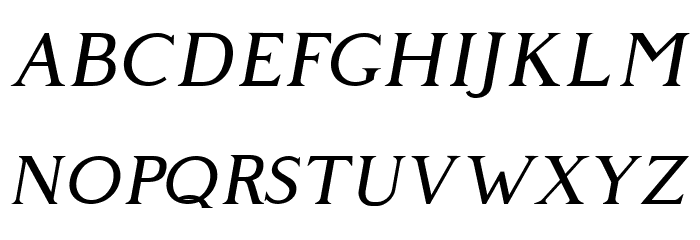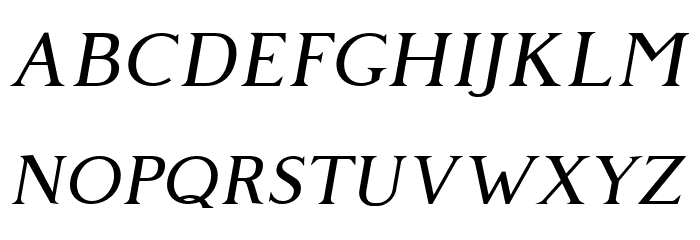
Giveny Free Italic Font
This font features a classic italic style with elegant, flowing lines that give it a sophisticated and timeless appearance. The characters are slightly slanted to the right, enhancing the sense of motion and fluidity. Each letter is crafted with precision, showcasing a harmonious balance between thick and thin strokes, which adds to its refined aesthetic. The serif elements are subtle yet distinct, contributing to the font's readability and charm. This typeface is versatile, suitable for both formal and creative applications, making it a great choice for projects that require a touch of elegance and tradition.
An elegant italic serif font with flowing lines and balanced strokes.
- Font: Giveny Free Italic
- Proposed Projects: Ideal for wedding invitations, formal event programs, elegant branding, and editorial design.
- Category: Serif
- Overall Style: Classic